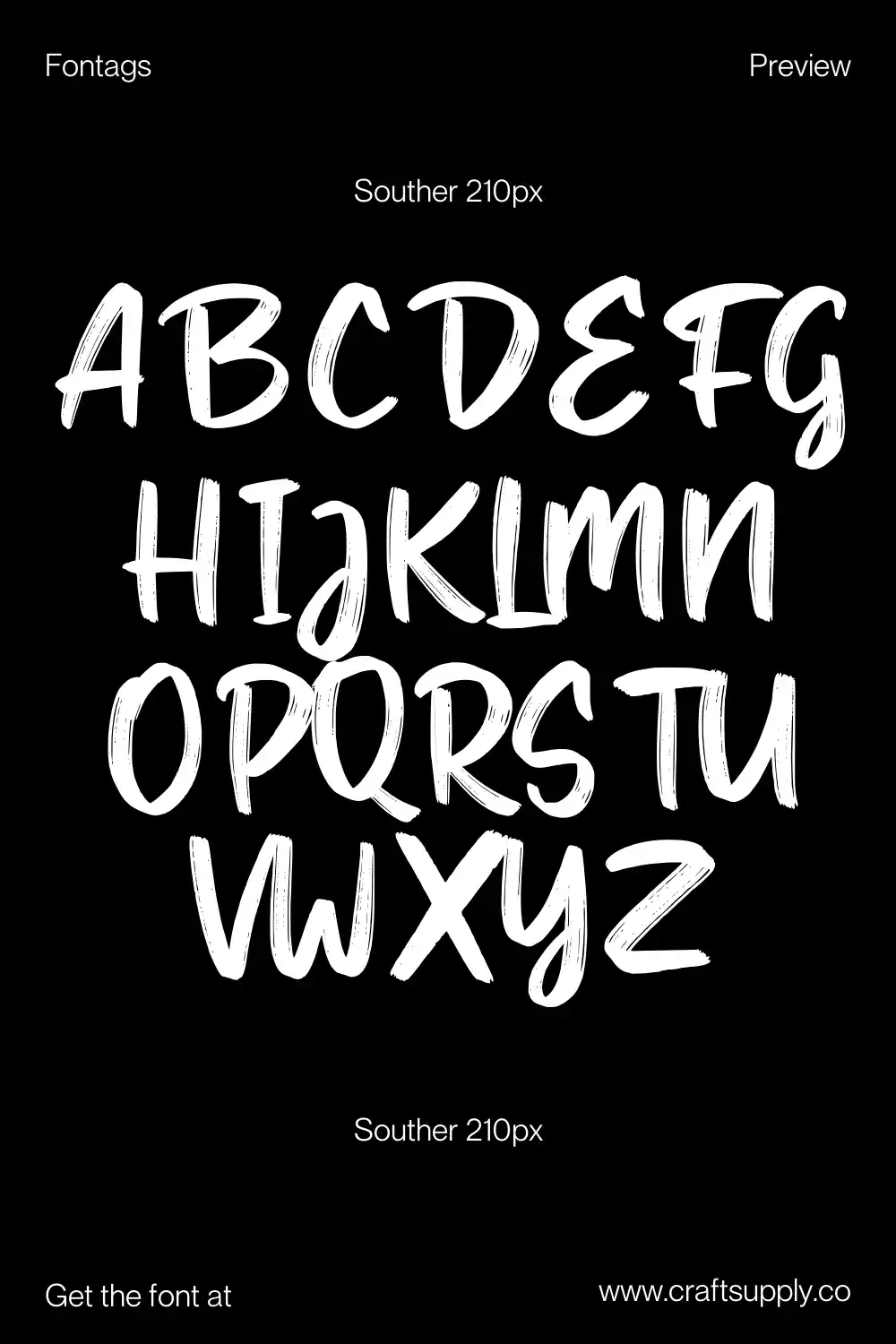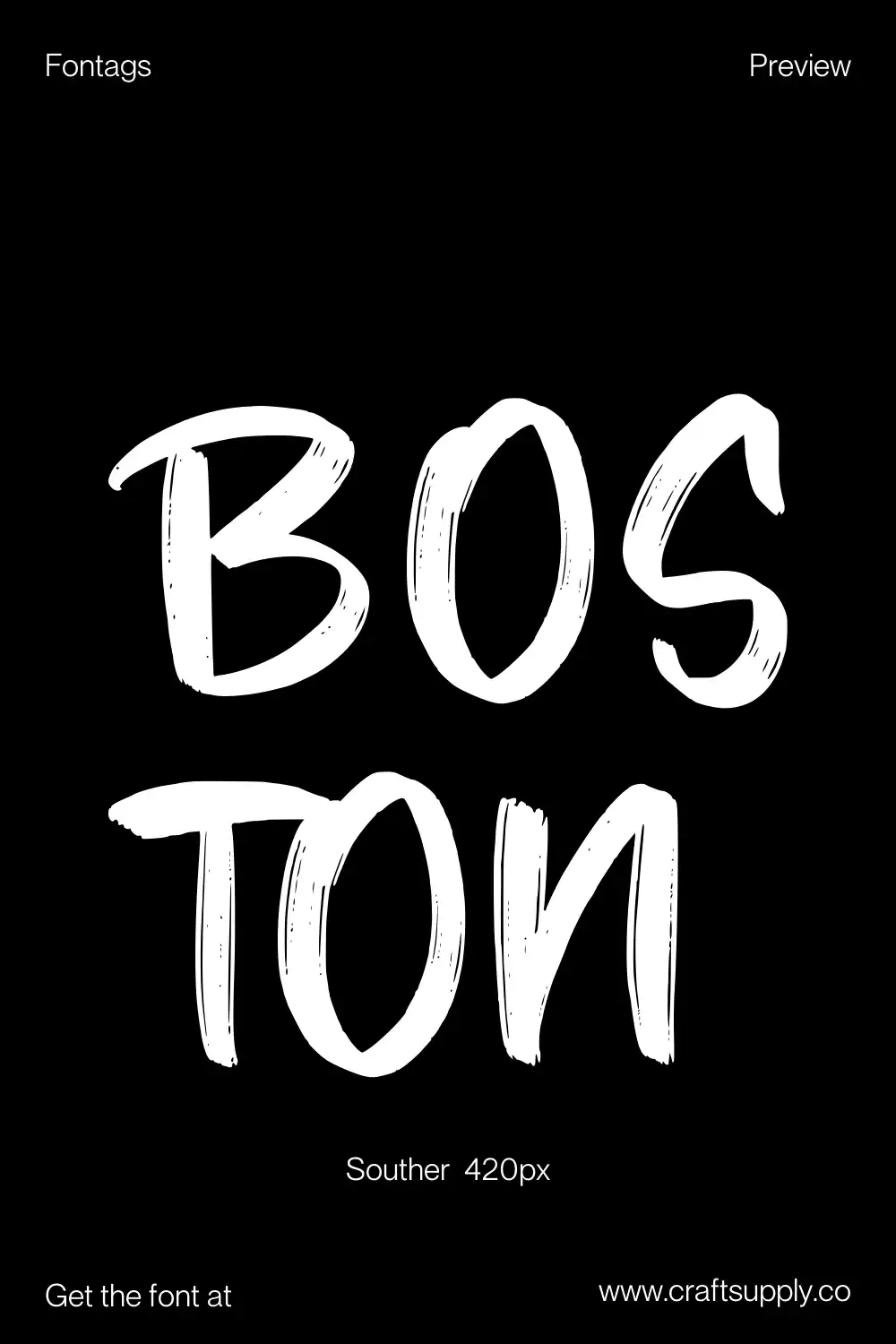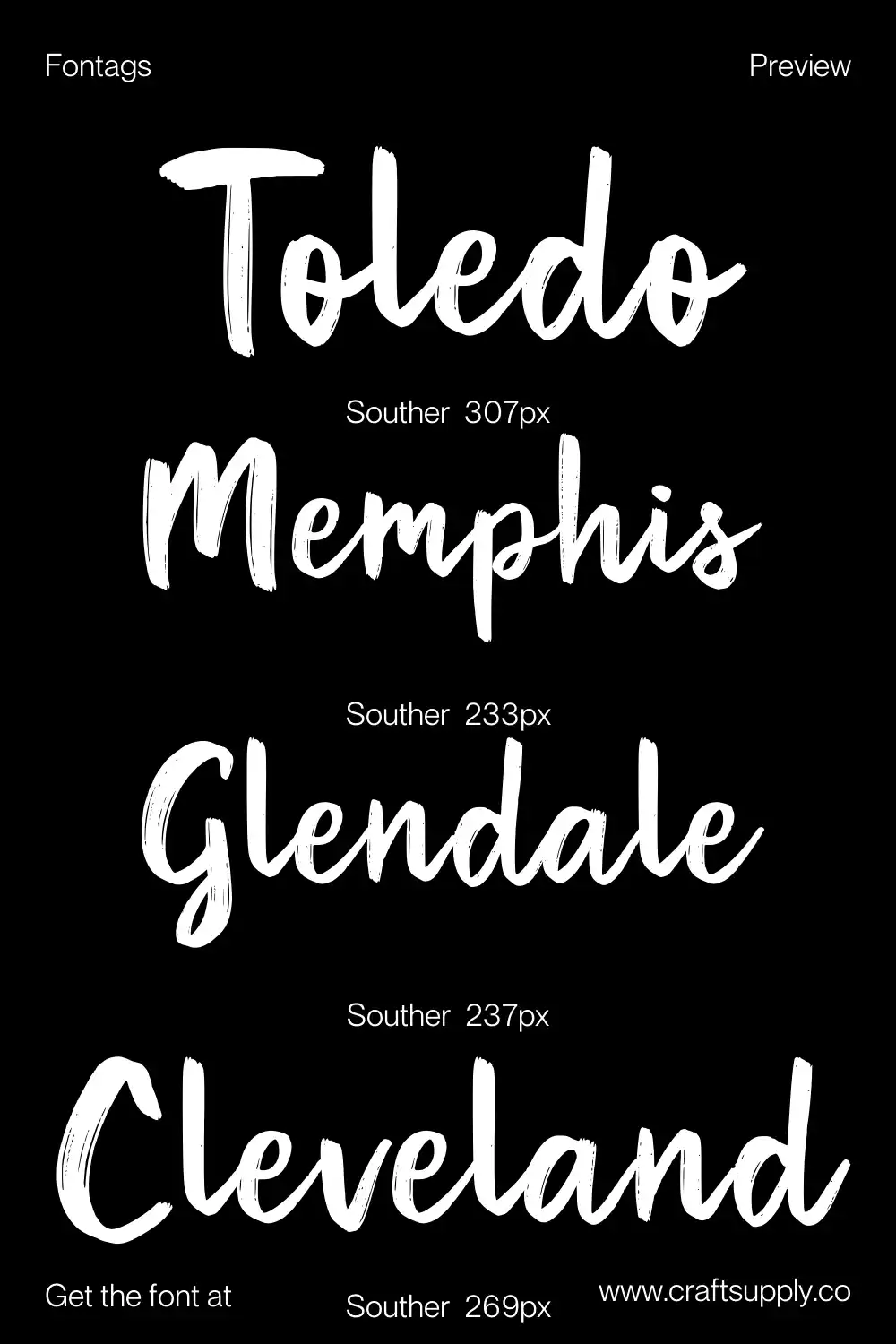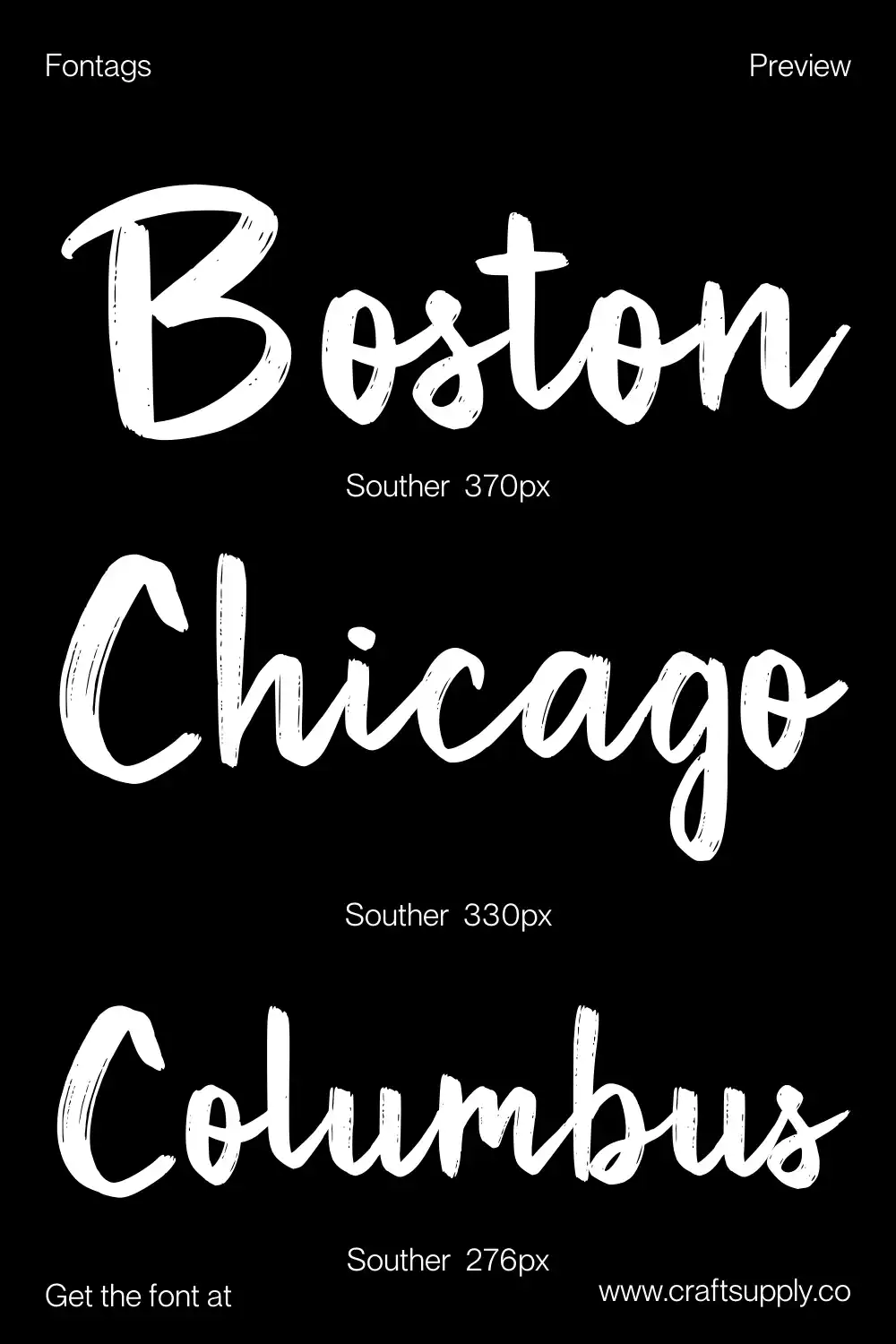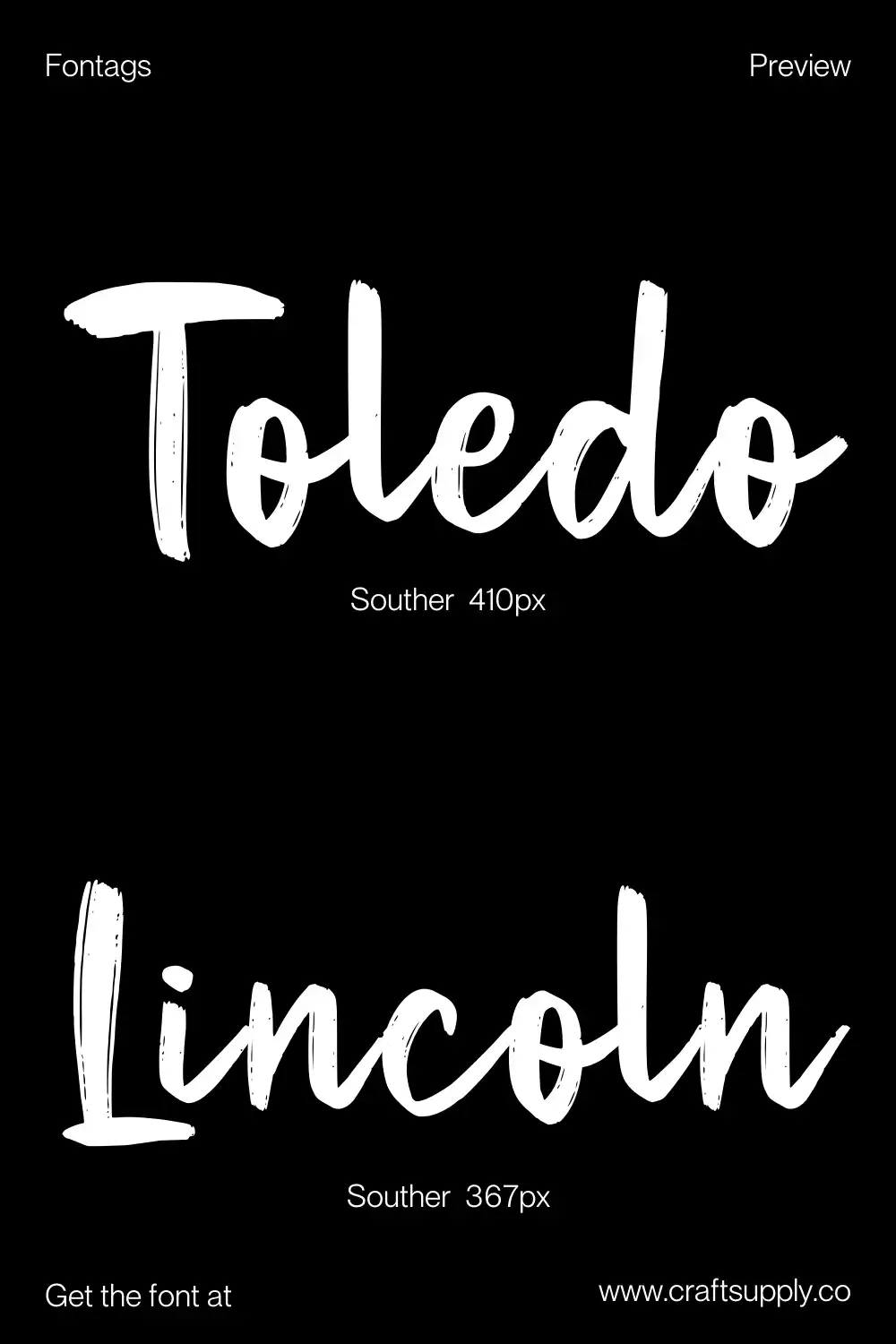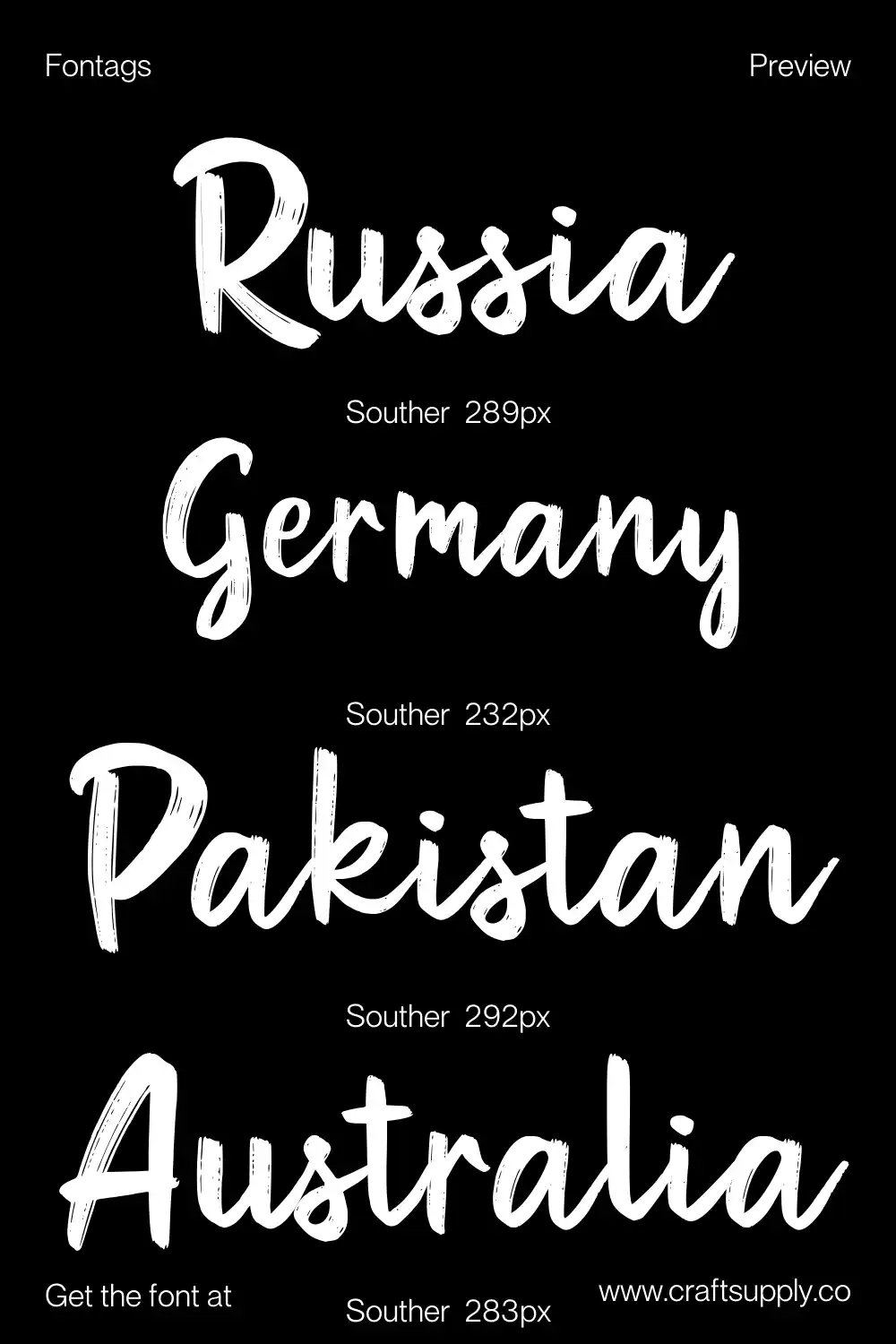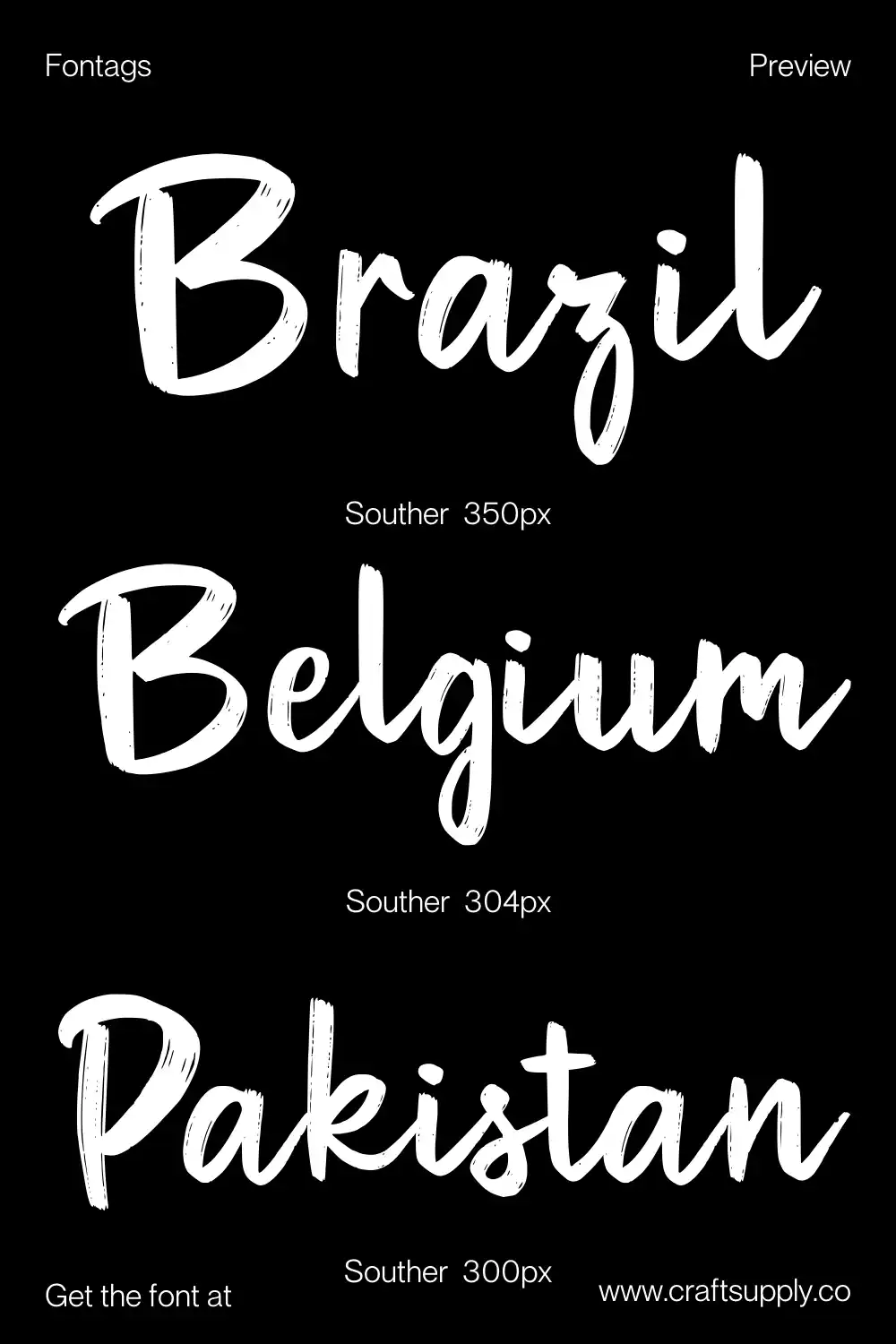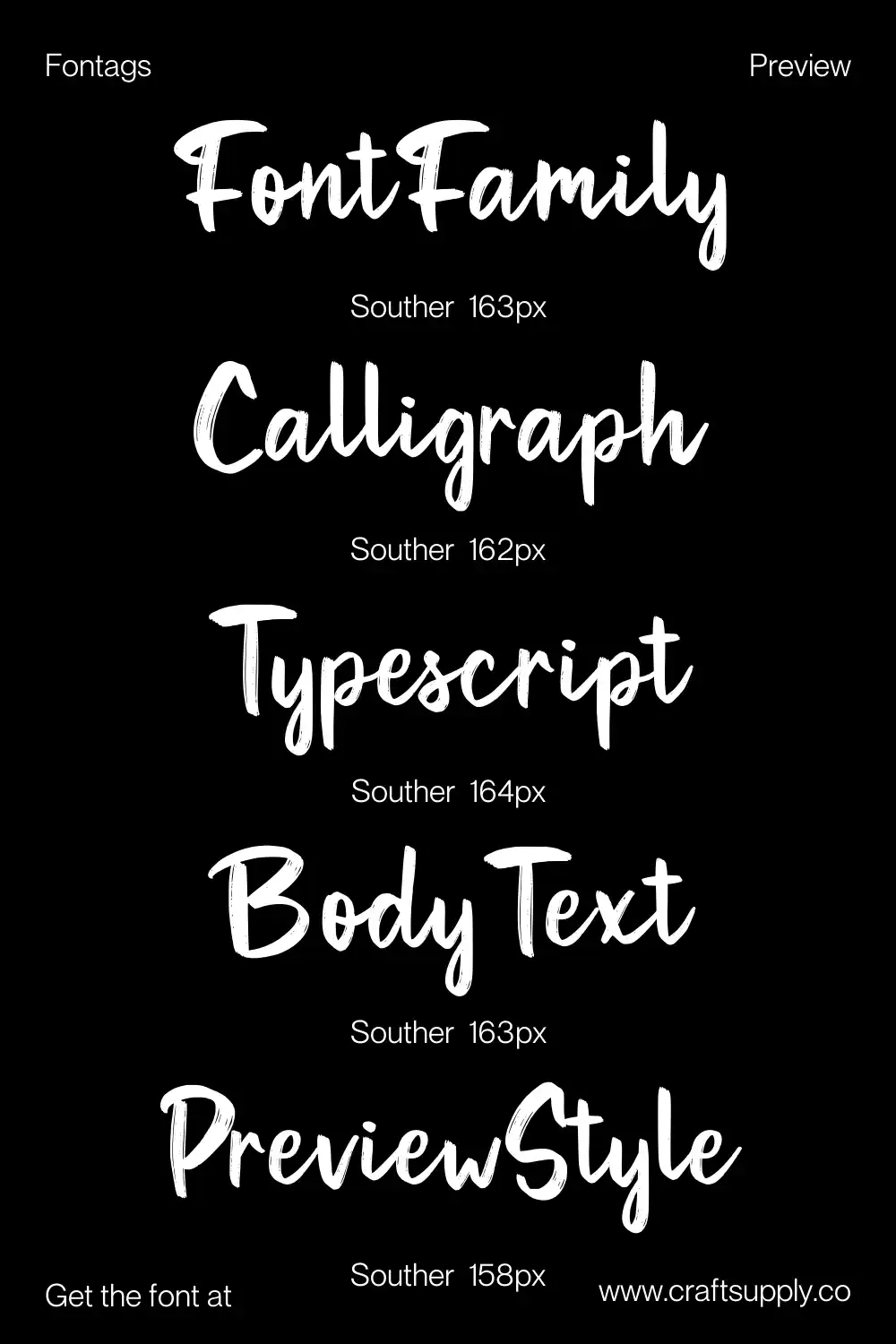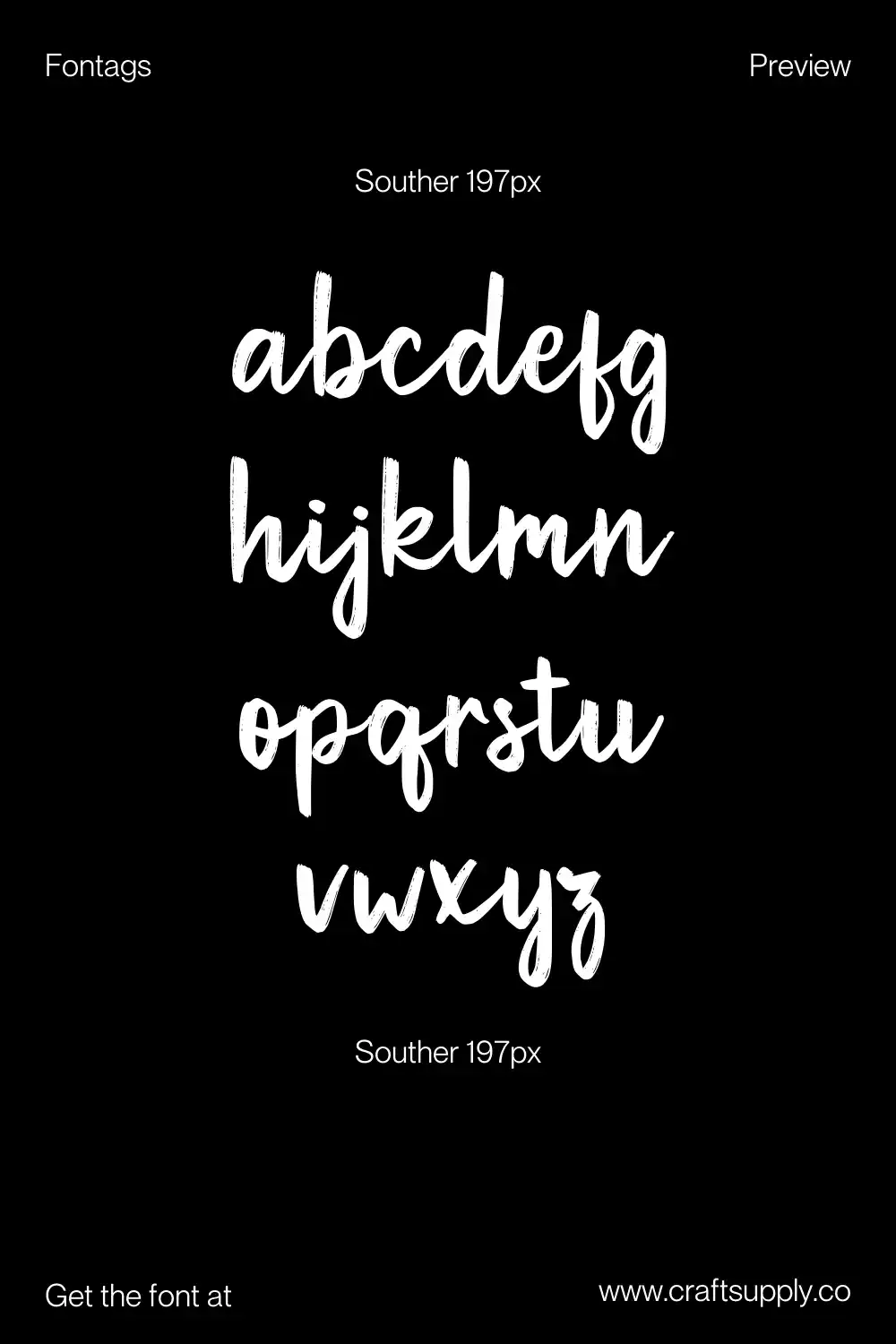
Souther – Brush Script Font is an brush script font based on the expression of real handwriting. Souther – Brush Script Font will work perfectly for fashion, e-commerce brands, trend blogs, wedding boutiques or any business that wants to appear upscale and chic.